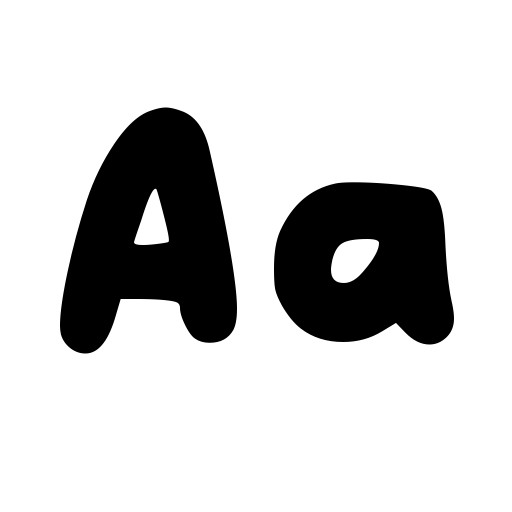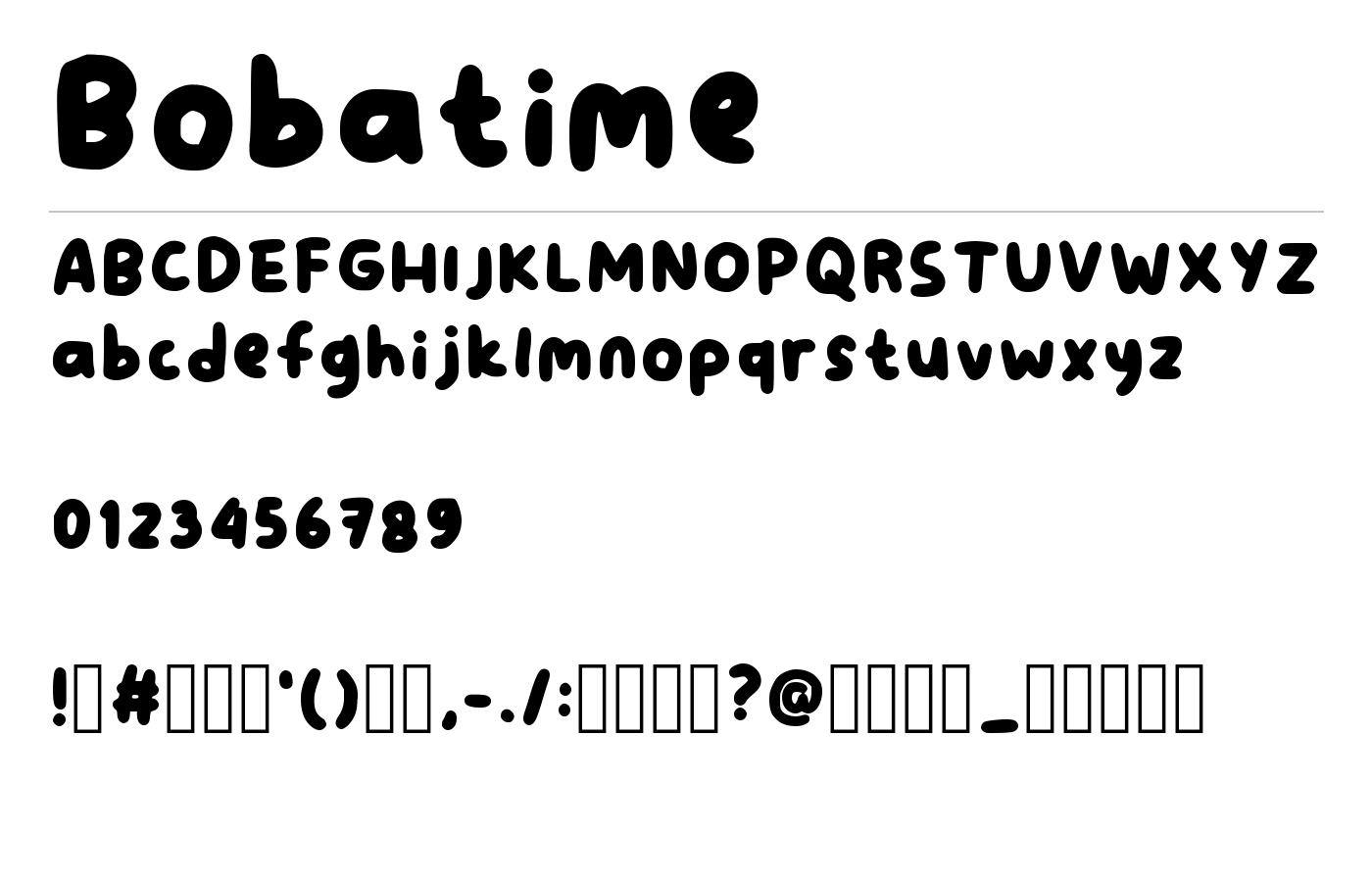
Bobatime is a playful, rounded sans serif font characterized by its bold weight and soft, friendly shapes. Its casual handwritten style with smooth, thick strokes and a high x-height makes it ideal for children’s books, informal branding, and fun, approachable designs. This font works well in headlines and logos where a warm, inviting personality is desired.
Bobatime Font
About Bobatime Font